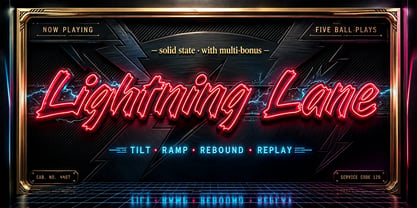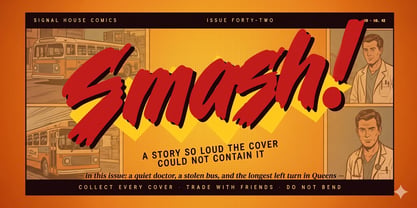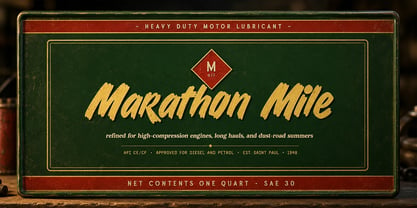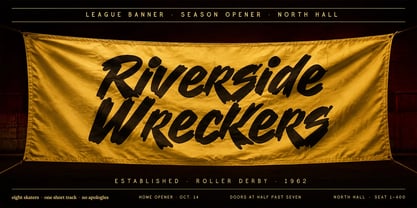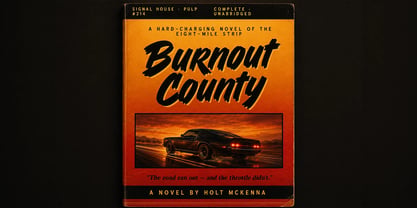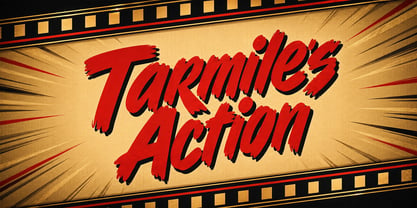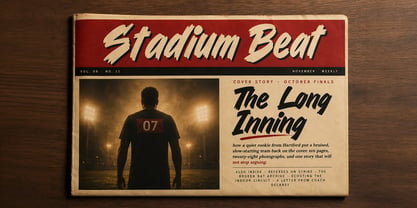
Tarmiles Action
by Mans Greback
The Tarmiles Action Font Family was designed by Måns Grebäck and published by Mans Greback. Tarmiles Action contains 4 styles and family package options. More about this family
Tarmiles Action is a high-contrast italic display face with dry-brush edges and a hard forward charge to every letter.
The verticals are thick and chiselled; the horizontals taper into thin tails. The whole alphabet pulls to the right, and the rough perimeter — the small splatters and broken edges — comes from a loaded brush dragged at speed across uncoated paper. There is a sharp 60s comic energy in the caps and a mid-century sports-magazine bite in the way the letters cut across the line.
It hammers nicely across the cover of a paperback motor-racing pulp, or barked over a freeze-frame in the opening title of a low-budget action film.